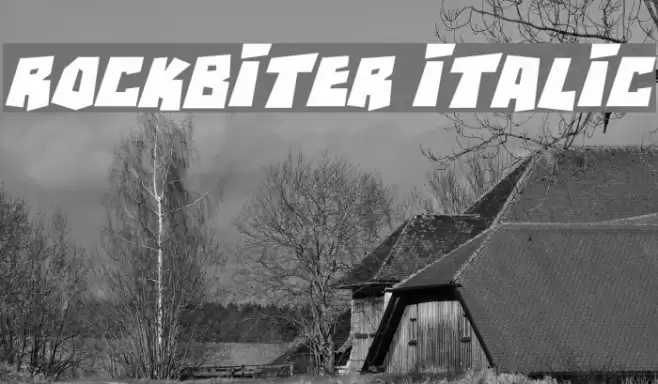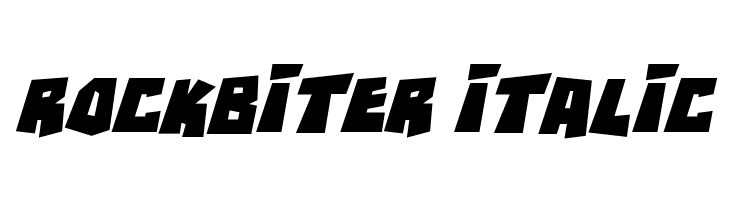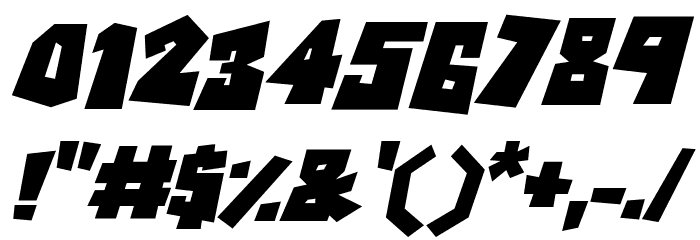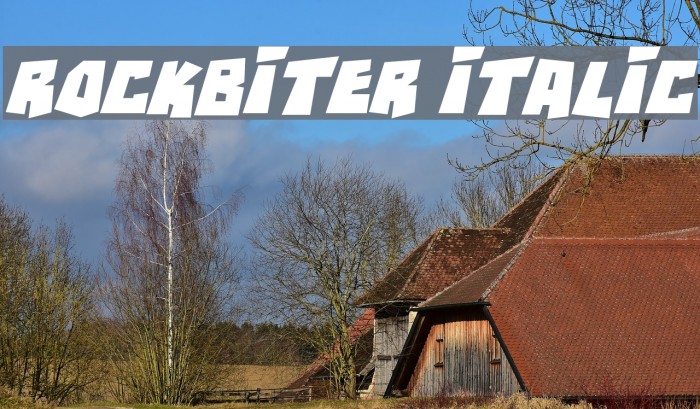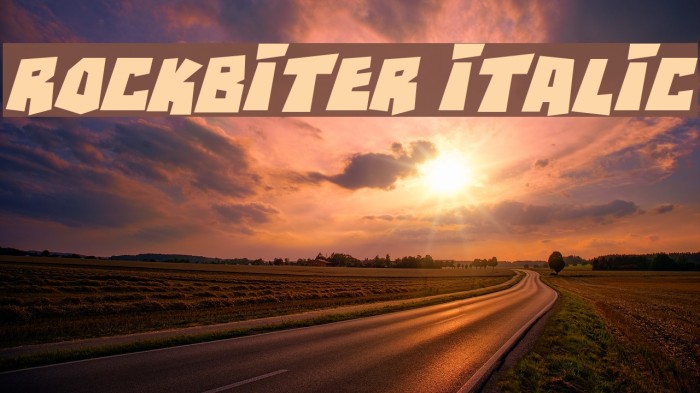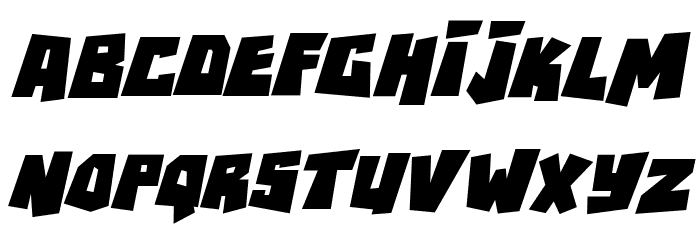
RockBiter Italic Font
RockBiter Italic Description
This font features a bold and dynamic design with sharp, angular edges and a distinct italic slant. The characters are heavily stylized, giving them a strong, impactful presence. The uppercase and lowercase letters maintain a consistent style, with exaggerated angles and a sense of movement. The numbers and special characters follow the same design principles, ensuring uniformity across the typeface. This font's unique appearance makes it suitable for attention-grabbing designs.
A bold, angular, and italicized font with a dynamic and impactful style from Cartoon fonts.
- Proposed Projects: Ideal for use in posters, video game titles, branding for extreme sports, or any project requiring a bold and energetic typeface.